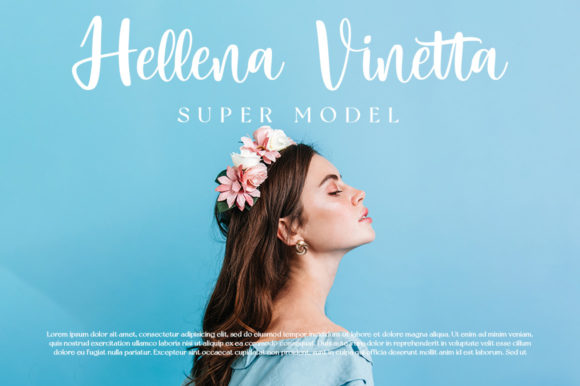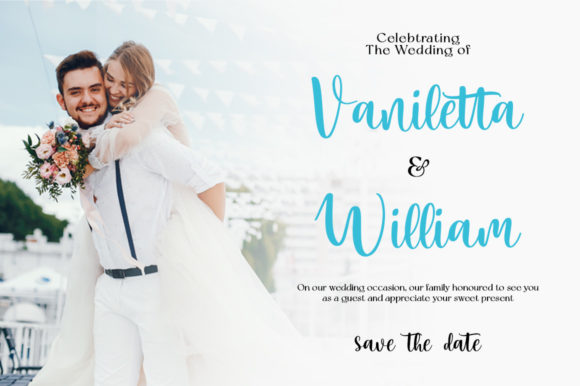
Mellaneta Font
db-ku.com - Script & Handwritten -- Mellaneta Script is a stylish Font Style. This beautiful script font offers your personal touch to your latest art project with an elegant, classy, and modern look.